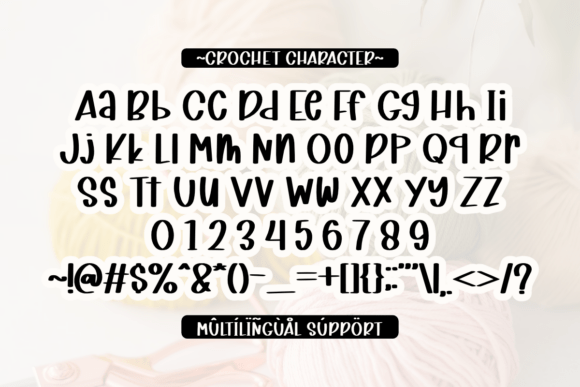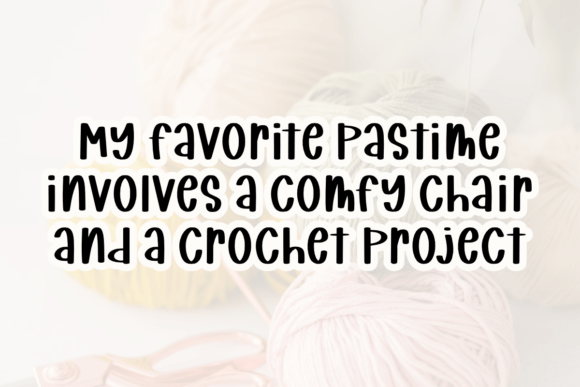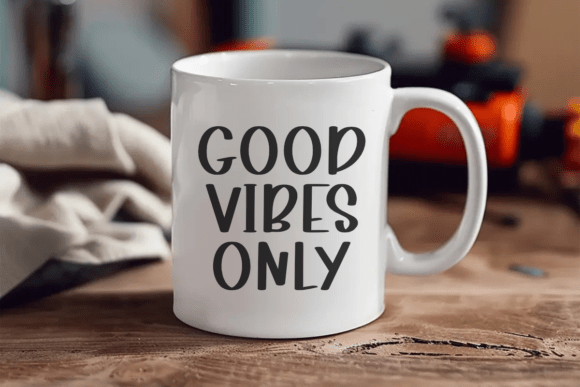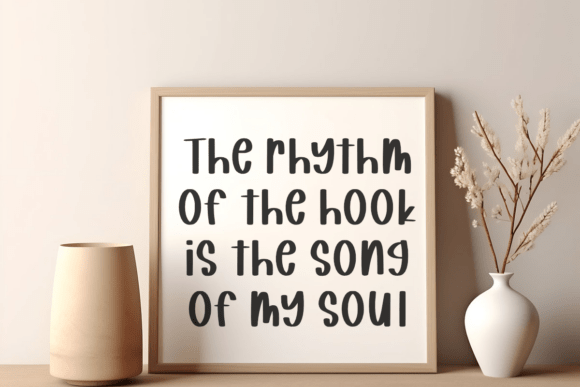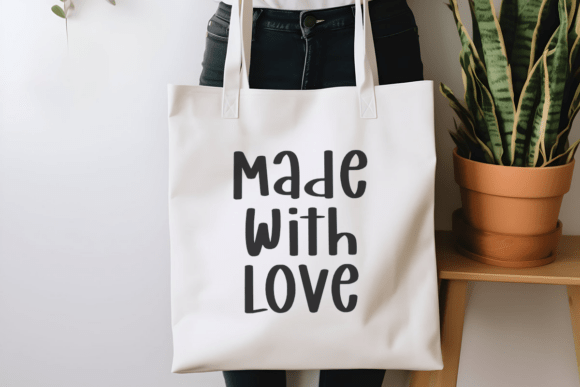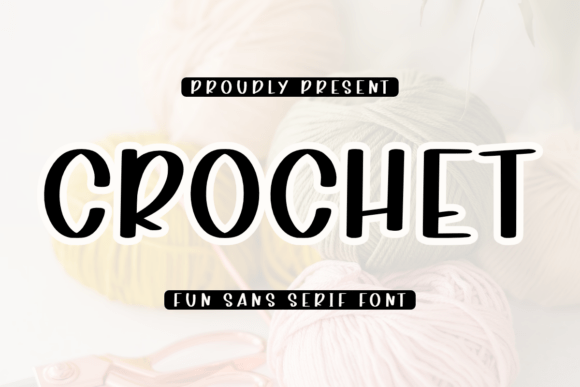
Crochet Font: The Perfect Choice for Crafty Designs
Crochet Font is a charming and minimalist sans serif font that has captured the hearts of designers and crafters alike. Its clean and simple lines make it an ideal choice for a wide range of creative projects, from greeting cards and wedding invitations to gift labels, mugs, t-shirts, and quotes. In this article, we’ll explore the features and benefits of Crochet Font, and how you can use it to create spectacular and interesting designs.
What is Crochet Font?
Crochet Font is a sans serif font, which means it doesn’t have the small lines or flourishes at the ends of the letters. This gives it a clean and modern look that’s perfect for designs that require a simple yet elegant touch. The font is also highly legible, making it easy to read and understand, even at small sizes.
Features of Crochet Font
- Cute and Minimalist Design: Crochet Font has a unique and adorable design that’s both simple and stylish. Its minimalist approach makes it versatile and easy to pair with other fonts and design elements.
- Highly Legible: The font is designed to be highly legible, making it perfect for body text, headings, and titles.
- Wide Range of Uses: Crochet Font is suitable for a wide range of creative projects, including greeting cards, wedding invitations, gift labels, mugs, t-shirts, quotes, labels, and more.
- Easily Customizable: The font is easily customizable, allowing you to adjust the size, color, and style to fit your design needs.
Benefits of Using Crochet Font
So, why should you choose Crochet Font for your designs? Here are just a few benefits:
- Unique and Eye-Catching: Crochet Font adds a touch of personality and whimsy to your designs, making them stand out from the crowd.
- Easy to Pair with Other Fonts: The font’s simple design makes it easy to pair with other fonts and design elements, allowing you to create complex and interesting designs.
- Perfect for Crafty Designs: Crochet Font is specifically designed with crafty designs in mind, making it perfect for projects like greeting cards, gift labels, and more.
- Time-Saving: The font’s high legibility and simple design make it easy to use and work with, saving you time and effort in the design process.
Using Crochet Font for Your Designs
So, how can you use Crochet Font to create spectacular and interesting designs? Here are a few ideas:
- Greeting Cards: Use Crochet Font to create cute and personalized greeting cards for special occasions like birthdays, weddings, and holidays.
- Wedding Invitations: Add a touch of elegance and sophistication to your wedding invitations with Crochet Font.
- Gift Labels: Use Crochet Font to create adorable gift labels that add a personal touch to your gifts.
- Mugs and T-Shirts: Create fun and quirky designs for mugs and t-shirts using Crochet Font.
- Quotes and Posters: Use Crochet Font to create inspiring and motivational quotes and posters that are sure to grab attention.
In conclusion, Crochet Font is a versatile and charming font that’s perfect for crafty designs. Its clean and simple lines make it easy to read and work with, while its unique and eye-catching design adds a touch of personality to your projects. Whether you’re a designer or a crafter, Crochet Font is a great choice for creating spectacular and interesting designs. So why not give it a try and see what amazing creations you can come up with?